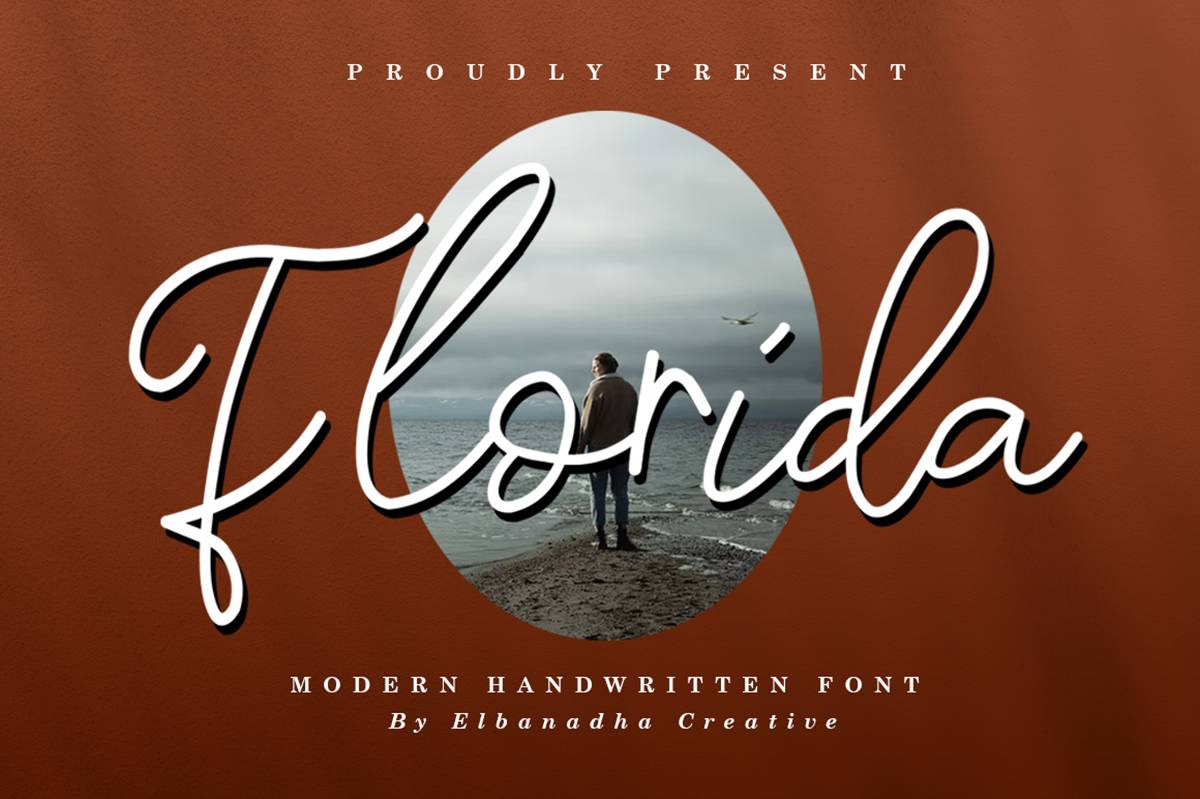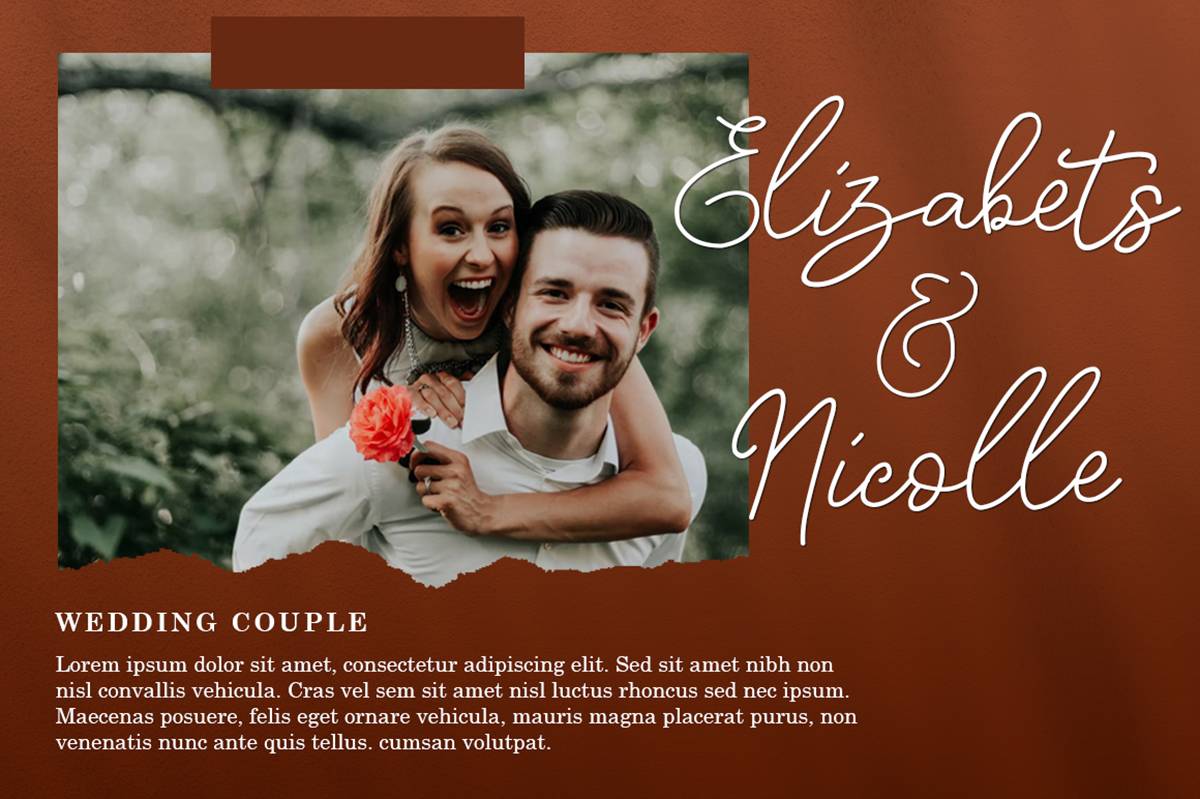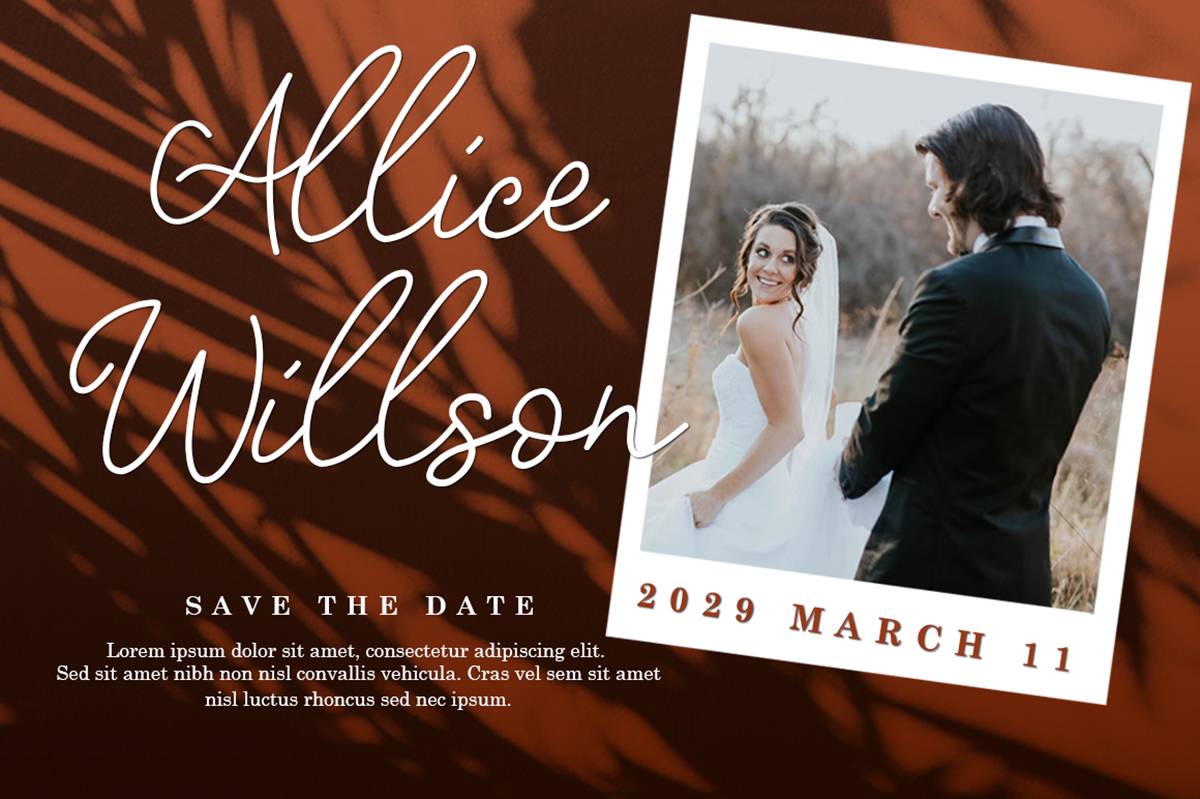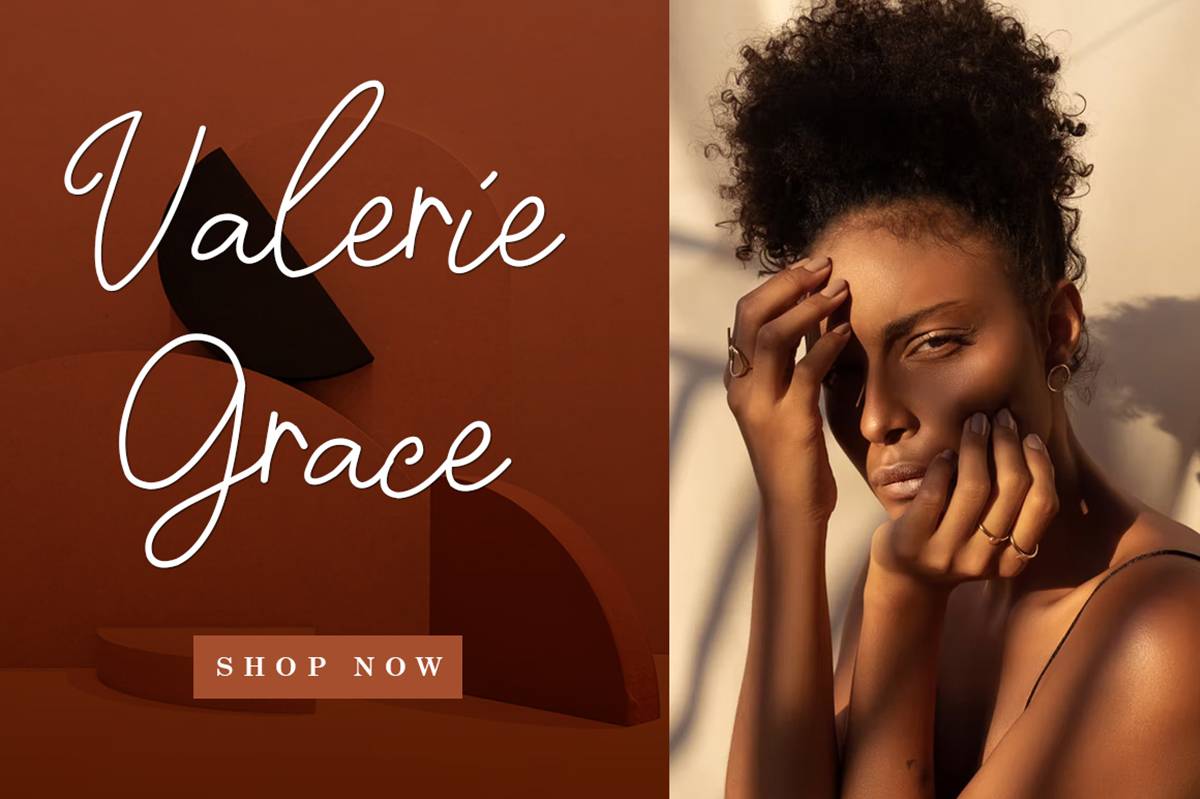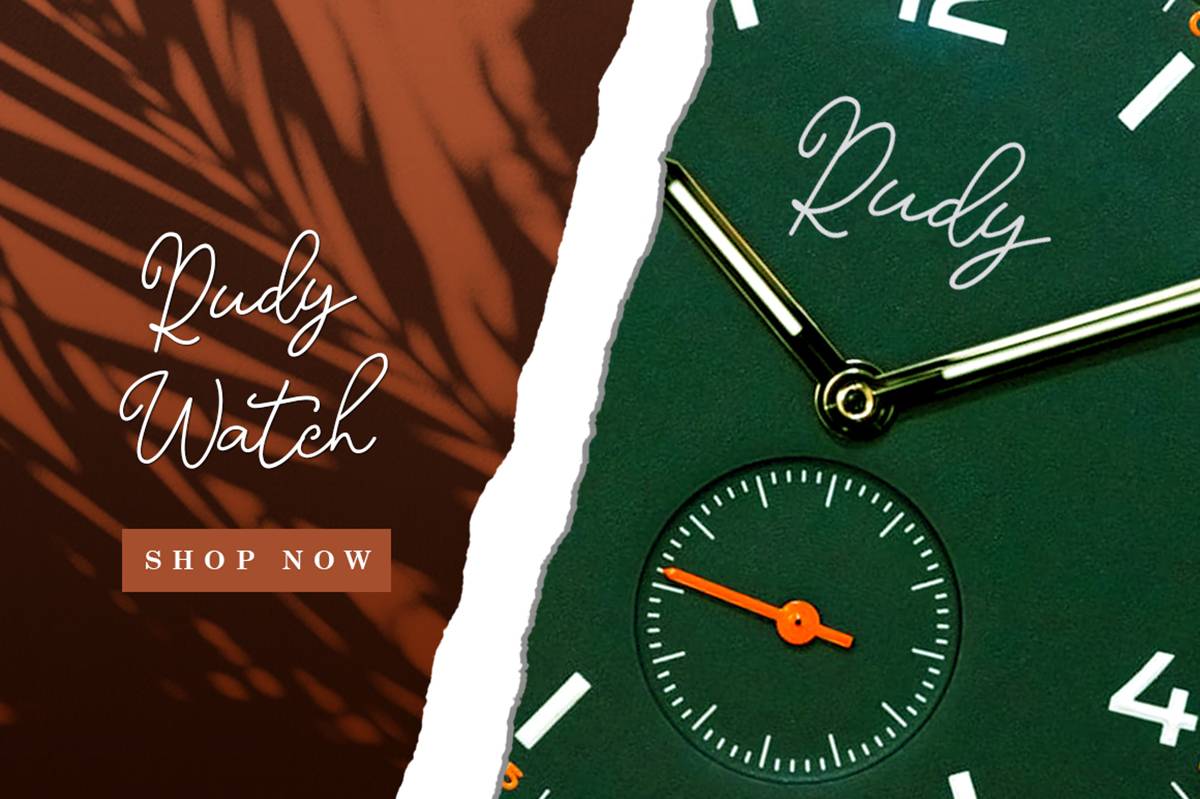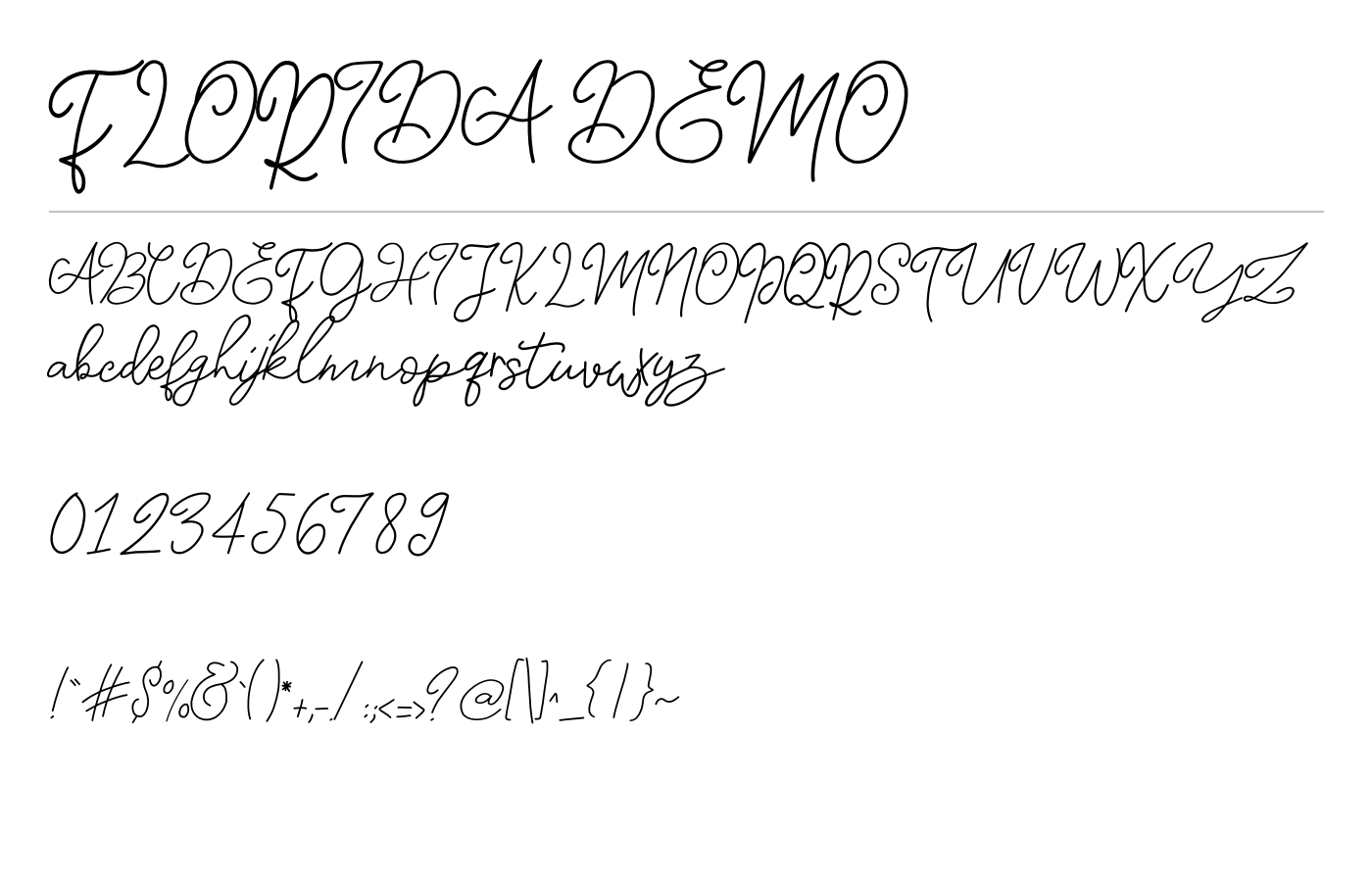
Florida Font is a delicate and elegant script typeface with thin, flowing strokes that convey a sense of grace and sophistication. Its light weight and narrow width make it perfect for stylish invitations, logos, and branding that require a refined, handwritten touch. This font’s airy, cursive style works well in contexts where a personal and artistic flair is desired, especially in fashion, beauty, and luxury designs.
Florida Font
About Florida Font
| Font family | Florida Font |
| Designer | Elbanadha Creative |